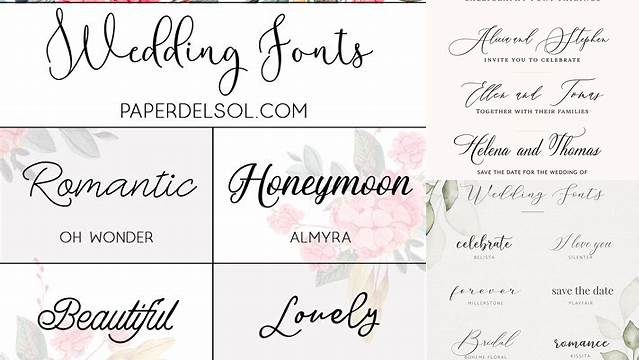
Wedding Text Font: Free Download For Stunning Invites
Planning a wedding? One crucial element that often gets overlooked is the font you use for your invitations, save-the-dates, and other wedding-related materials. The right wedding text font can truly set the tone and reflect the style of your big day. Finding that perfect font doesn't have to break the bank! Luckily, there are tons of amazing options available as a free download. Let's dive into the world of wedding fonts and explore how you can snag some beautiful typefaces without spending a dime. Get ready to elevate your wedding stationery with these fantastic, free resources, guys!
Wedding Invitation Fonts: A Touch of Elegance
When it comes to wedding invitation fonts, elegance is key. You want something that feels sophisticated and timeless, but also readable. Script fonts are a popular choice, evoking a sense of romance and handwritten charm. However, it's crucial to choose a script that's legible, especially for important details like names and dates. Consider pairing a script font with a simpler sans-serif font for body text to ensure everything is easy to read. Remember, your invitations are the first glimpse your guests will have of your wedding style, so make sure they make a lasting impression.
Think about fonts like Alex Brush or Great Vibes. They are flowy, beautiful, and perfect for headlines. You could use a simpler, cleaner font like Open Sans or Lato for the details like the time, date, and location of the wedding. Mixing and matching fonts will give your invitation a professional and polished look. Don't be afraid to experiment and see what works best for you!
Calligraphy Fonts for Wedding: Handcrafted Beauty
Calligraphy fonts bring a handcrafted, personal touch to your wedding stationery. These fonts mimic the art of hand lettering, adding a unique and bespoke feel. While true calligraphy requires skilled penmanship, these fonts offer a convenient way to achieve a similar aesthetic. They are perfect for adding a touch of artistry to your invitations, place cards, and thank-you notes. A beautiful calligraphy font can elevate your wedding design and make it truly memorable. The best part? You can find awesome calligraphy fonts as a free download!
Before you finalize the design, make sure your font is legible. Nothing is worse than a beautiful font that your guests can't read! Consider the spacing between the letters and words, the size of the font, and the contrast between the font and the background. All of these factors will affect the readability of your text.
Script Fonts for Wedding Invitations: Flowing and Romantic
Script fonts are a classic choice for wedding invitations, known for their flowing lines and romantic appeal. These fonts often resemble handwriting, adding a personal and intimate touch to your stationery. When selecting a script font, consider its readability and how well it complements other design elements. A well-chosen script font can create a sense of elegance and sophistication, setting the perfect tone for your special day. And yes, many beautiful script options are available for free download.
Experiment with different colors and textures to make your design even more unique. You could use a gold foil effect for the names of the bride and groom, or print your invitations on textured paper to add a tactile element. The possibilities are endless! By taking the time to choose the perfect fonts and design elements, you can create invitations that are truly reflective of your personal style.
Free Fonts for Wedding Invitations: Budget-Friendly Options
Best Fonts for Wedding Invitations: Top Choices Reviewed
Choosing the best fonts for wedding invitations can be overwhelming, with so many options available. To help narrow down your choices, here's a review of some top contenders. Elegant script fonts like Shelly Script and Aphrodite Pro are always popular, exuding sophistication and grace. For a more modern look, consider sans-serif fonts like Raleway or Montserrat, which offer clean lines and readability. Ultimately, the best font depends on your personal style and the overall aesthetic of your wedding. Don't be scared to mix it up.
Modern Wedding Fonts: Sleek and Contemporary
For couples planning a modern wedding, sleek and contemporary fonts are a perfect choice. These fonts often feature clean lines, geometric shapes, and a minimalist aesthetic. Modern wedding fonts can add a touch of sophistication and style to your invitations, save-the-dates, and other stationery. Look for sans-serif fonts with a bold, clean design, or consider a unique display font to make a statement. There are plenty of options for free download, so you can achieve a modern look without breaking the bank.
DIY Wedding Invitations: A Creative and Personal Touch
Creating DIY wedding invitations is a great way to add a creative and personal touch to your wedding. With free wedding fonts and design software, you can easily create beautiful and unique invitations that reflect your personal style. There are tons of online resources and tutorials to guide you through the process. So get creative and have fun!